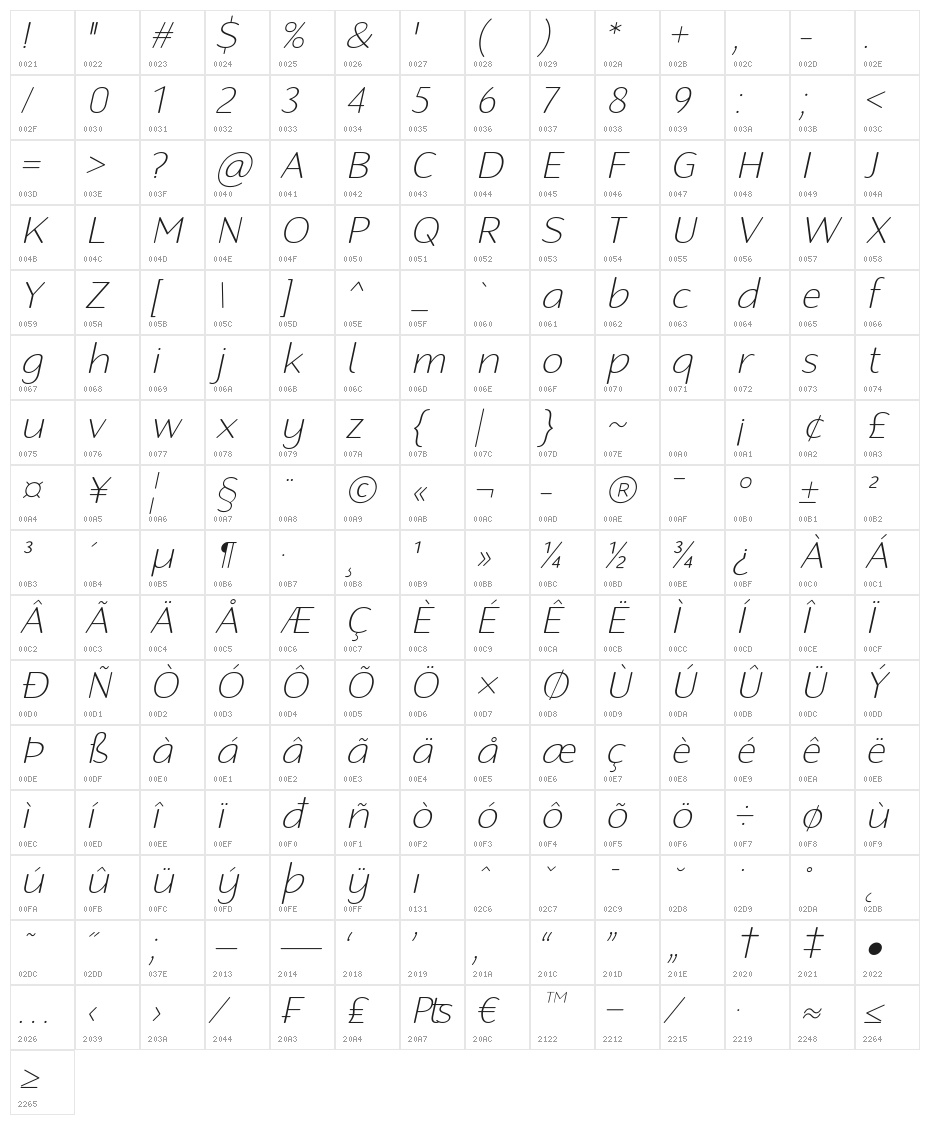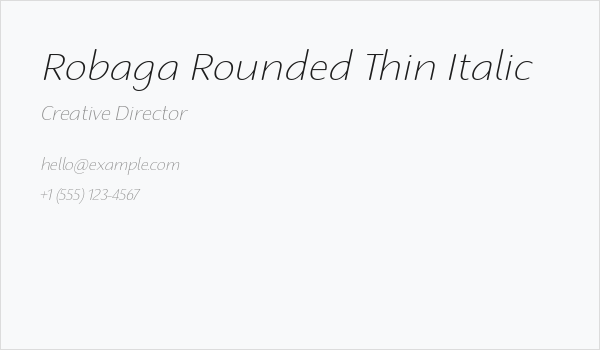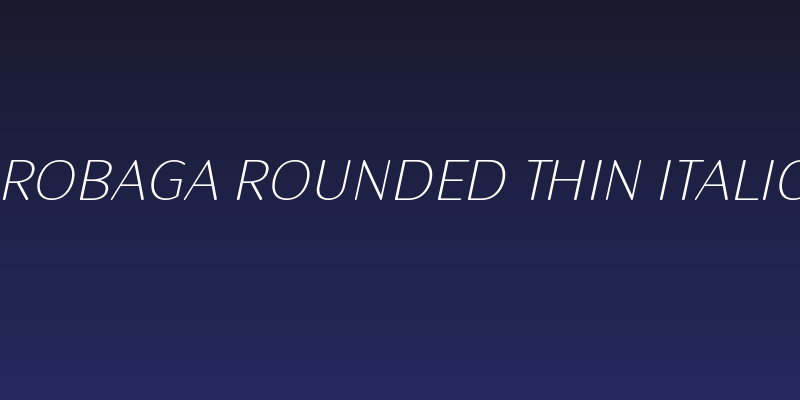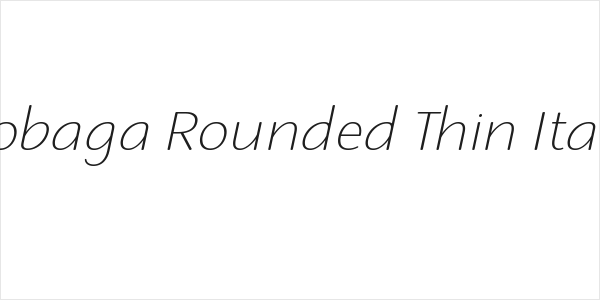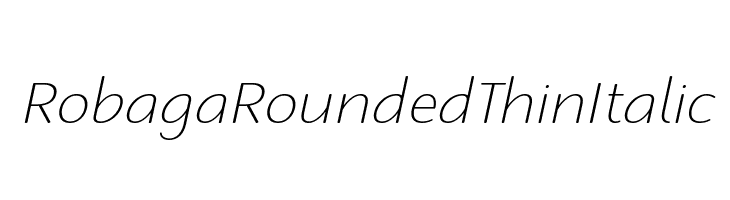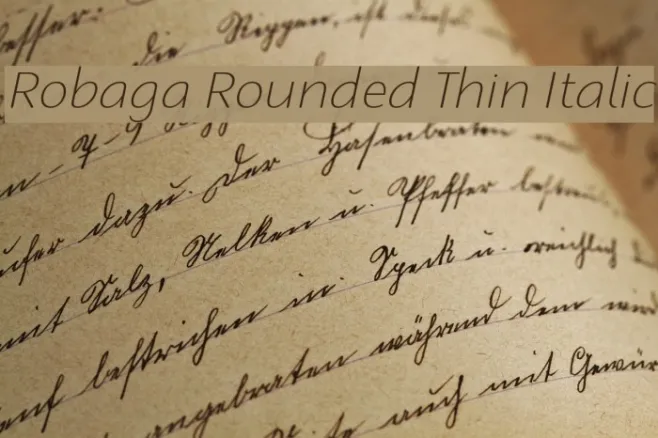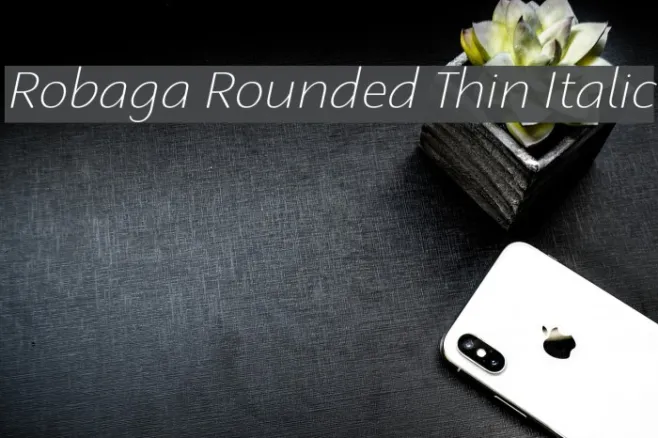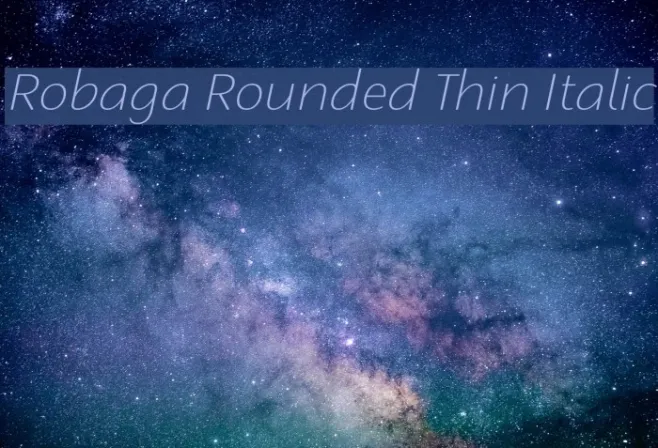
Robaga Rounded Thin Italic Font
Robaga Rounded Thin Italic Description
This font features a sleek, rounded design with a thin and elegant appearance. The characters are slightly italicized, giving them a dynamic and modern look. The rounded edges provide a soft and approachable feel, while the thin strokes maintain a sense of sophistication and clarity. The font is well-suited for applications that require a contemporary and stylish touch, such as branding or digital interfaces. Its clean lines and minimalistic style make it versatile for various design projects.
| Use Case | Headlines, Logos, Digital interfaces |
| Proposed Projects | Ideal for branding, digital interfaces, modern advertising, and minimalist design projects. |